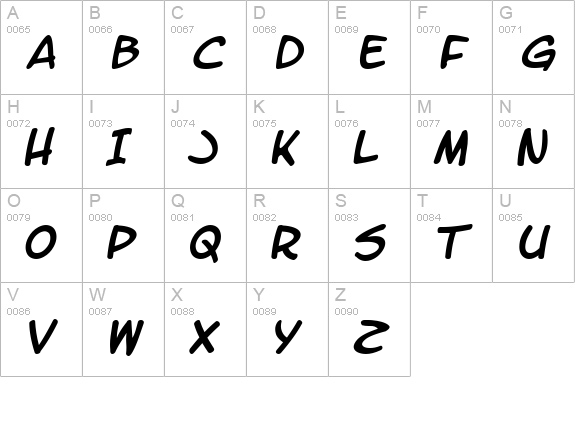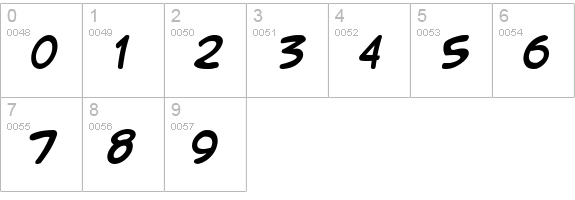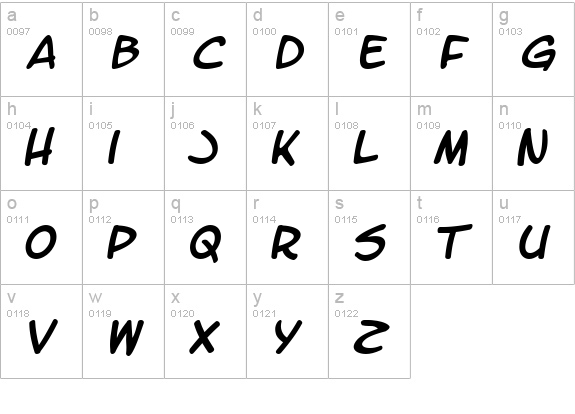
LetterOMatic! Italic Font Details
LetterOMatic! Italic is a distinctive, italic variant in the LetterOMatic! typeface family \xE2\x80\x94 well suited to design and typography projects.
*LetterOMatic* is a stunningly versatile and stylish font that is sure to make any project stand out. With its unique combination of sleek lines and elegant curves, this font is perfect for adding a touch of sophistication to any design. Whether you're creating a logo, a poster, or even a website, *LetterOMatic* will effortlessly elevate your work to the next level. But what sets *LetterOMatic* apart from other fonts is that it is *free*! That's right, you can download this incredible font at no cost from FontsMarket.com. This means that you can enjoy the beauty and functionality of *LetterOMatic* without breaking the bank. Not only is *LetterOMatic* free, but it is also incredibly easy to use. Its clean and well-defined letters make it a breeze to read, ensuring that your message is clear and impactful. Plus, its wide range of weights and styles allow for endless possibilities and creative freedom. Whether you want to make a bold statement with the heavy version or add a subtle touch of elegance with the light version, *LetterOMatic* has you covered. So why wait? Download *LetterOMatic* today and experience the power of a high-quality, *free* font. Whether you're a professional designer or a hobbyist, this font will be a valuable addition to your collection. Don't miss out on the opportunity to elevate your design projects with *LetterOMatic*. Get it now at FontsMarket.com and let your creativity soar!